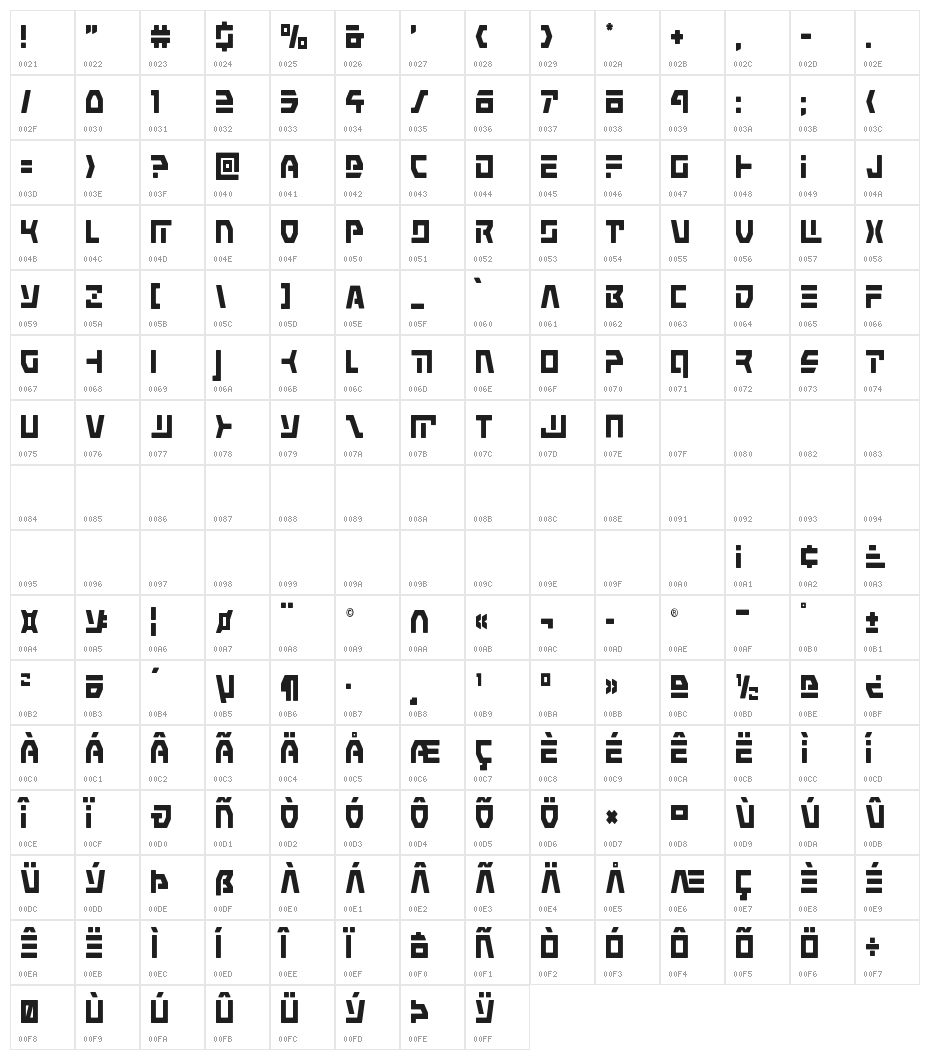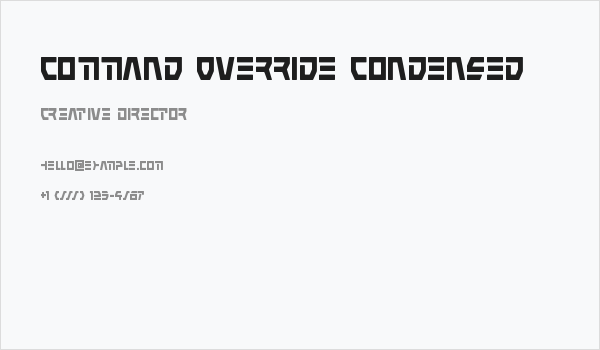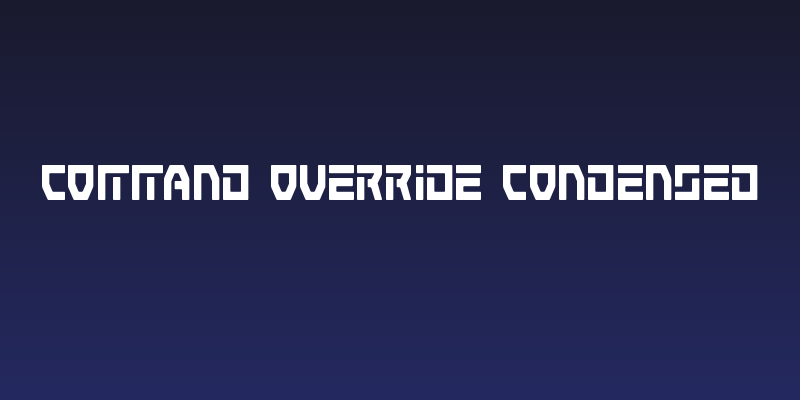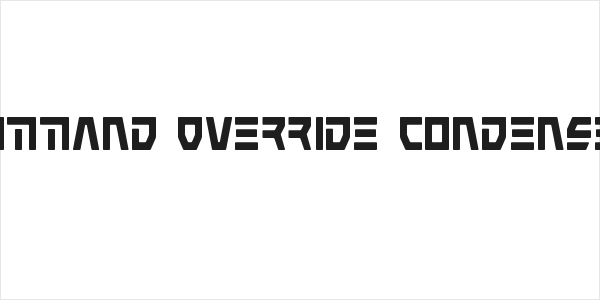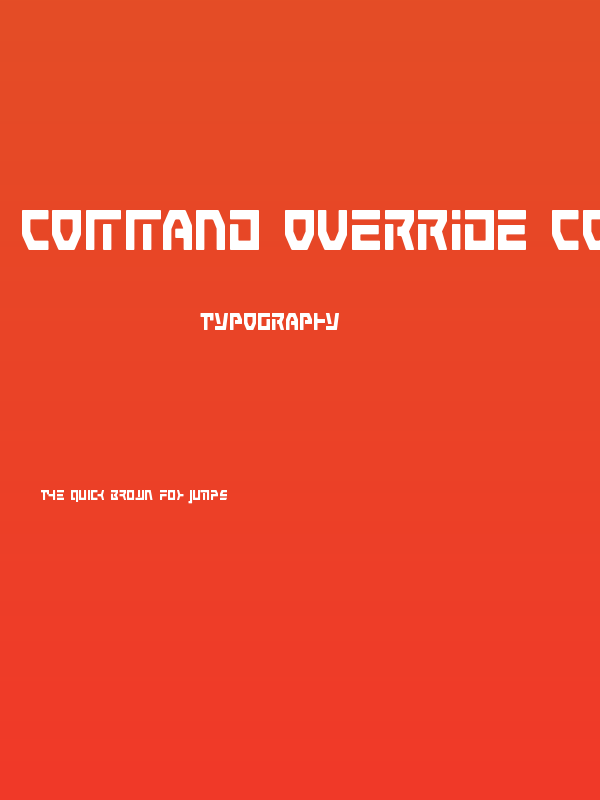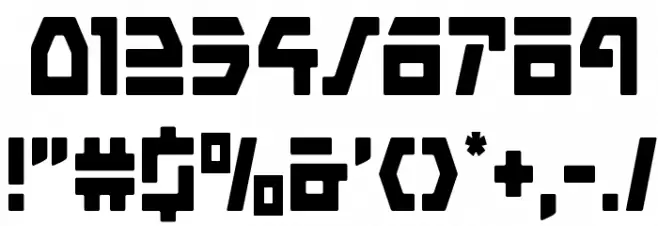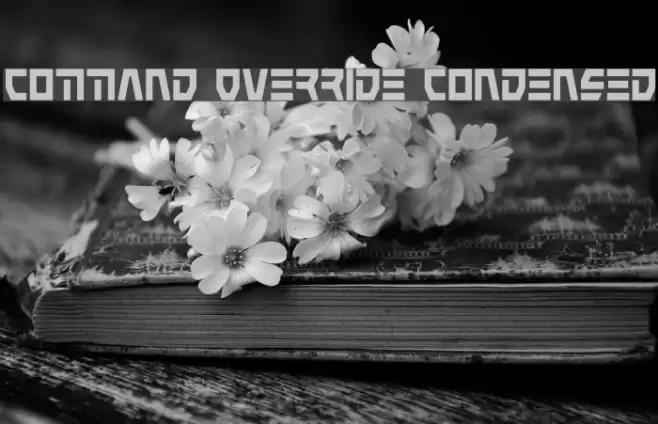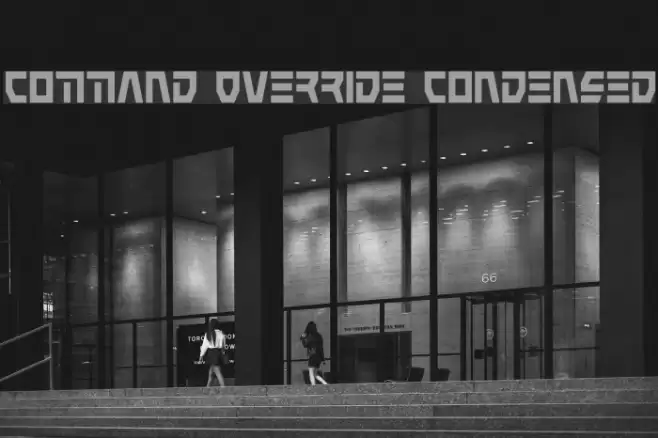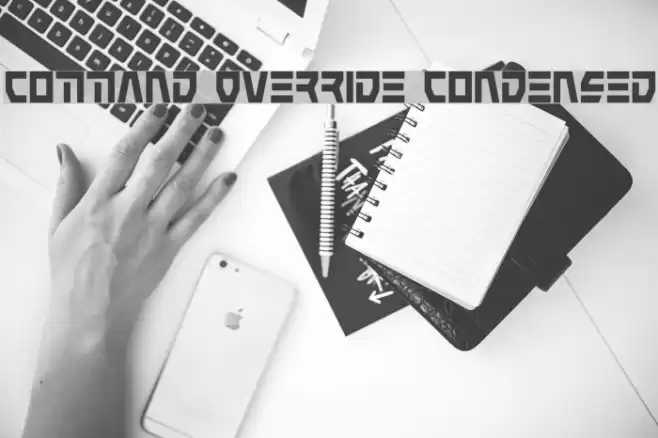
Command Override Condensed Font
Command Override Condensed Description
This font features a bold, futuristic design with a distinctly angular and geometric style. The characters are condensed, giving them a compact and efficient appearance. The uppercase letters are particularly striking, with sharp edges and a uniform thickness that conveys a sense of strength and modernity. The numerals and special characters maintain the same angular aesthetic, ensuring consistency across all glyphs. This typeface is ideal for projects that require a modern, tech-inspired look, such as video game titles, sci-fi movie posters, or technology branding.
| Overall Style | Futuristic |
| Proposed Projects | Ideal for video game titles, sci-fi movie posters, technology branding, and futuristic designs. |